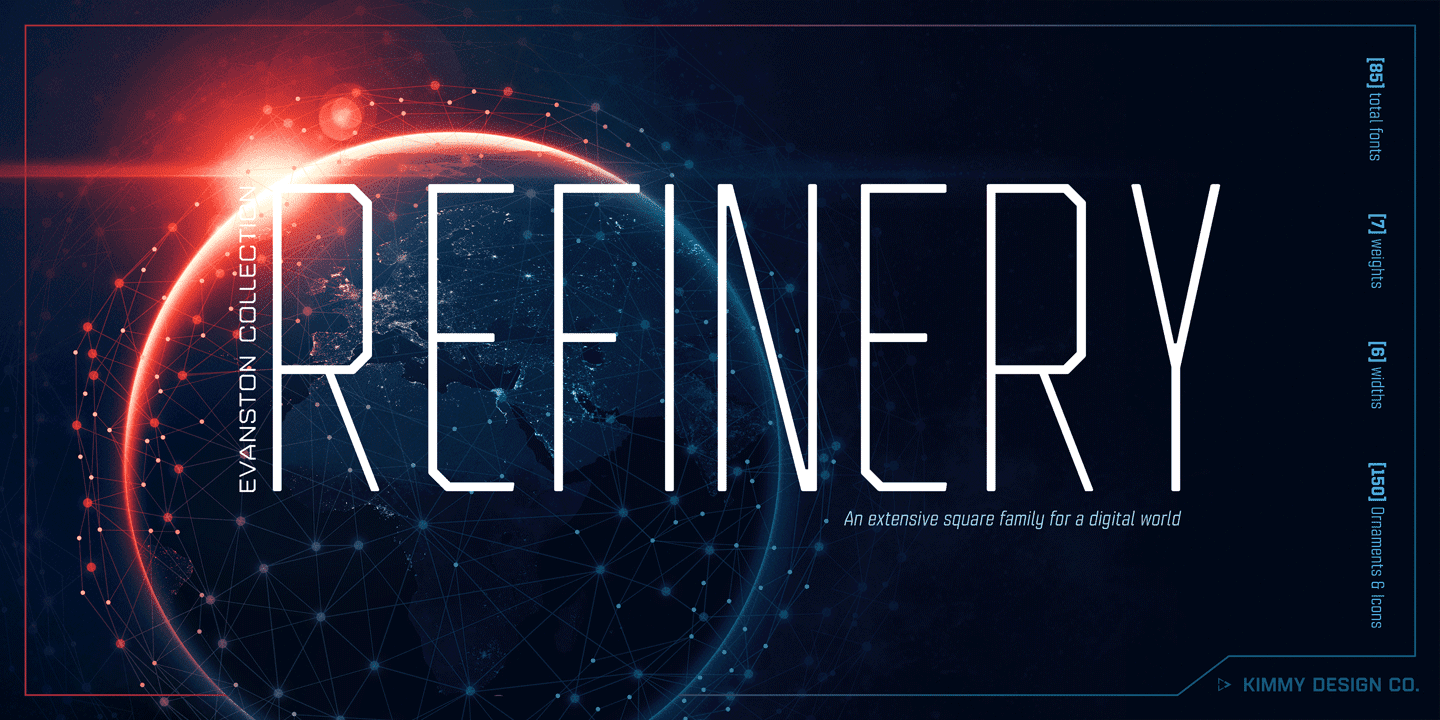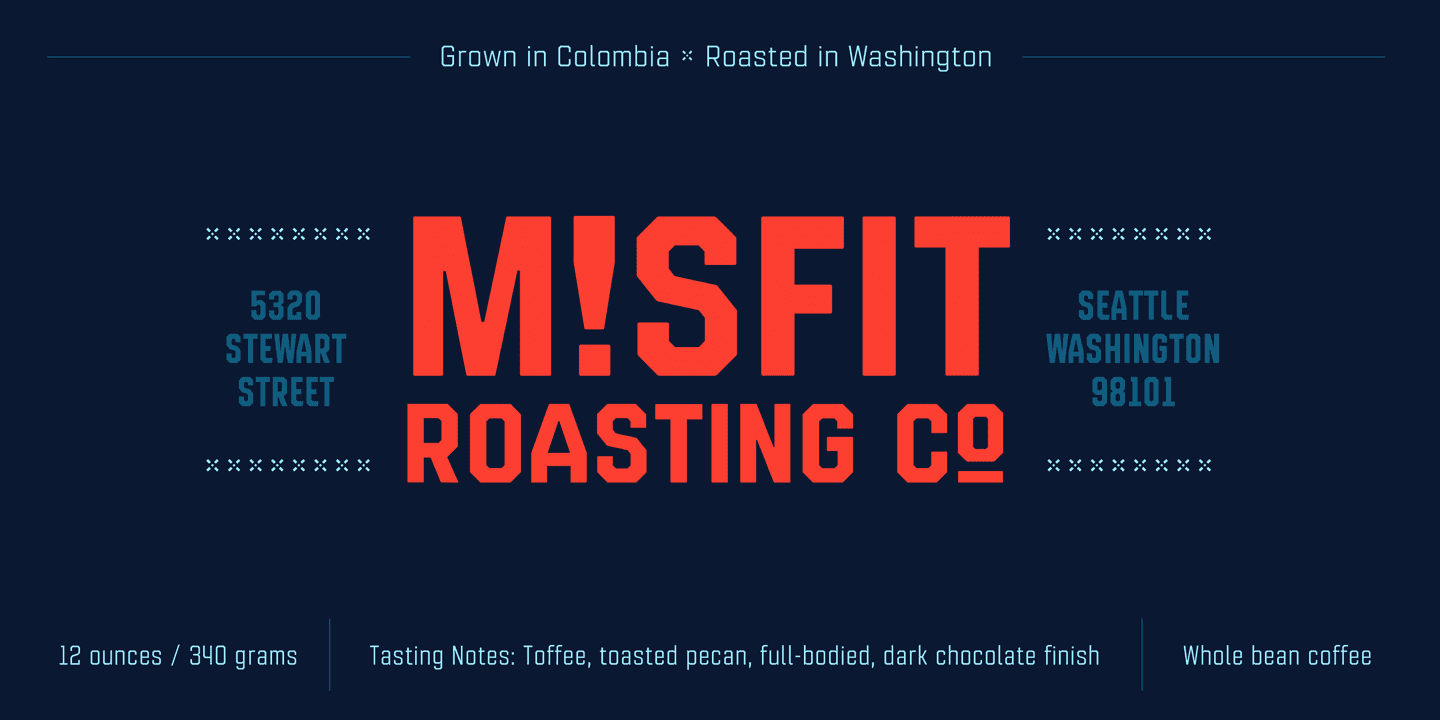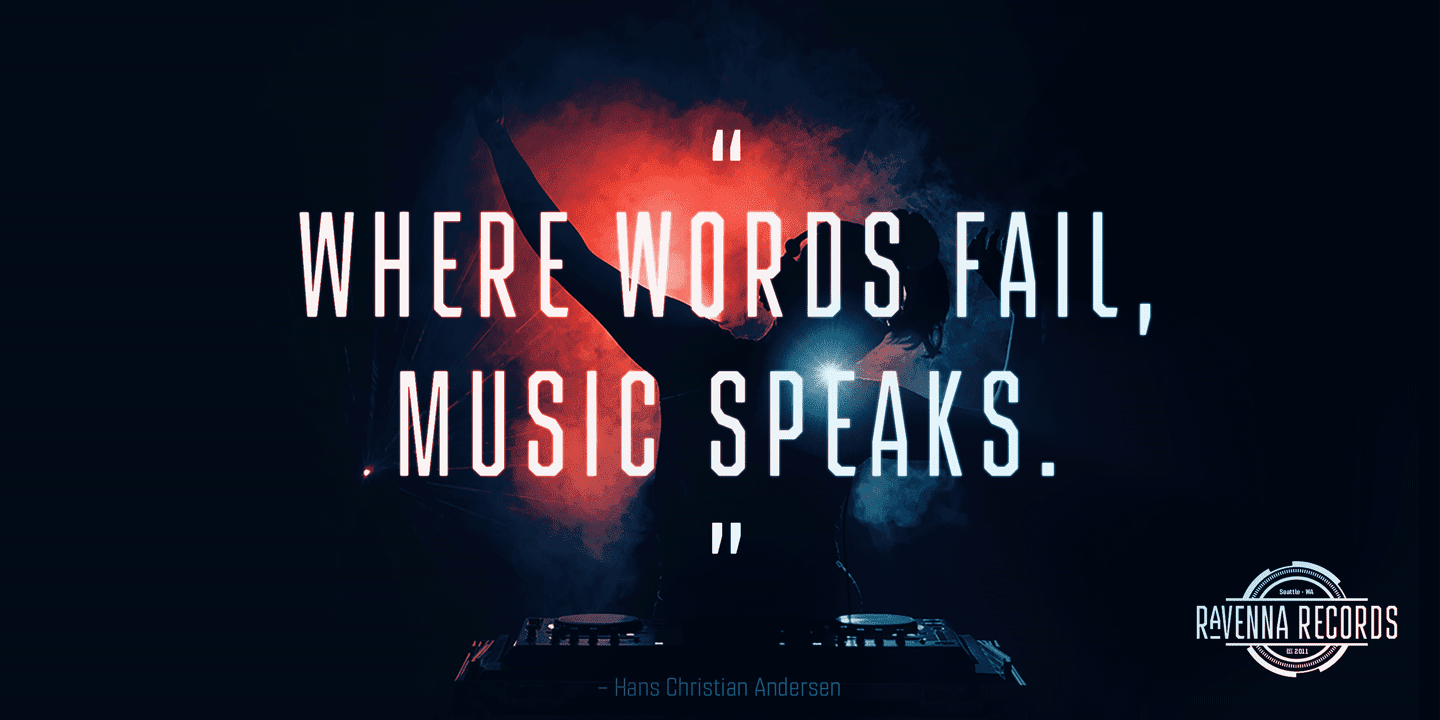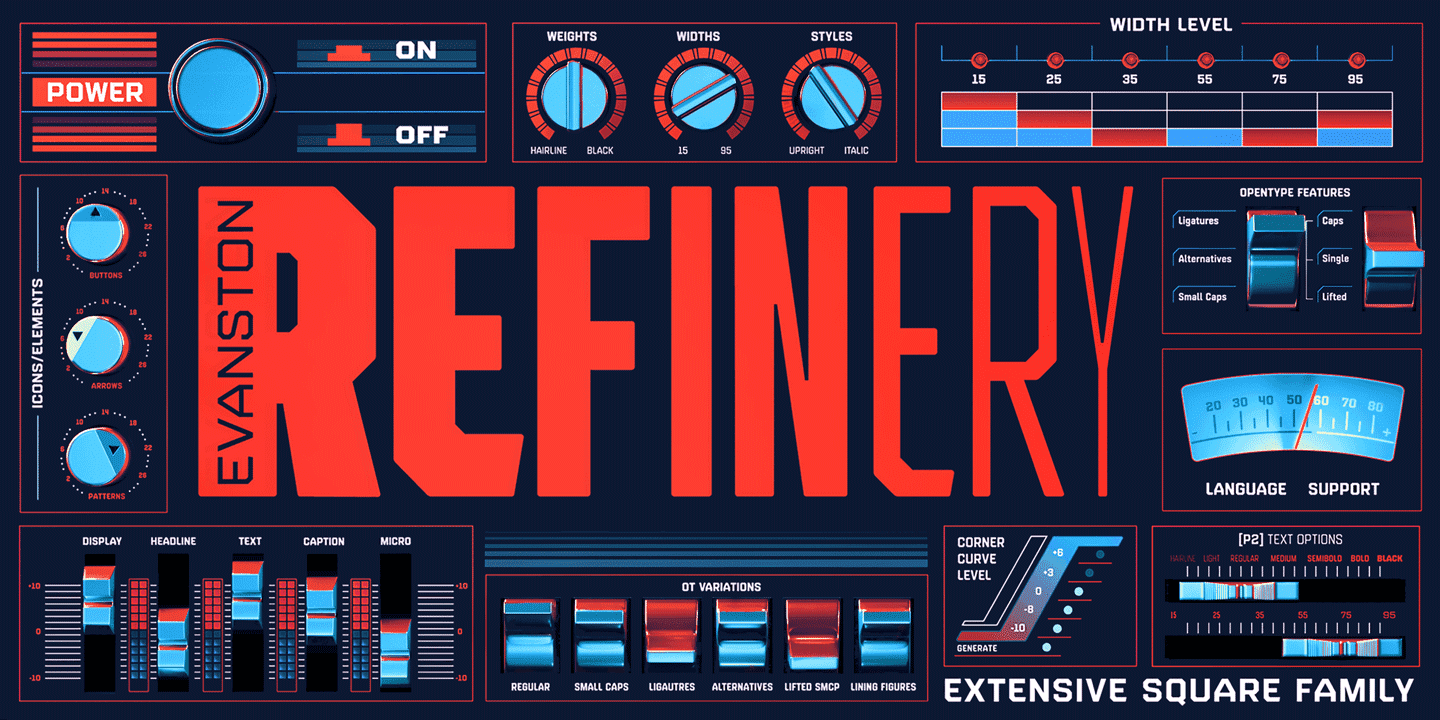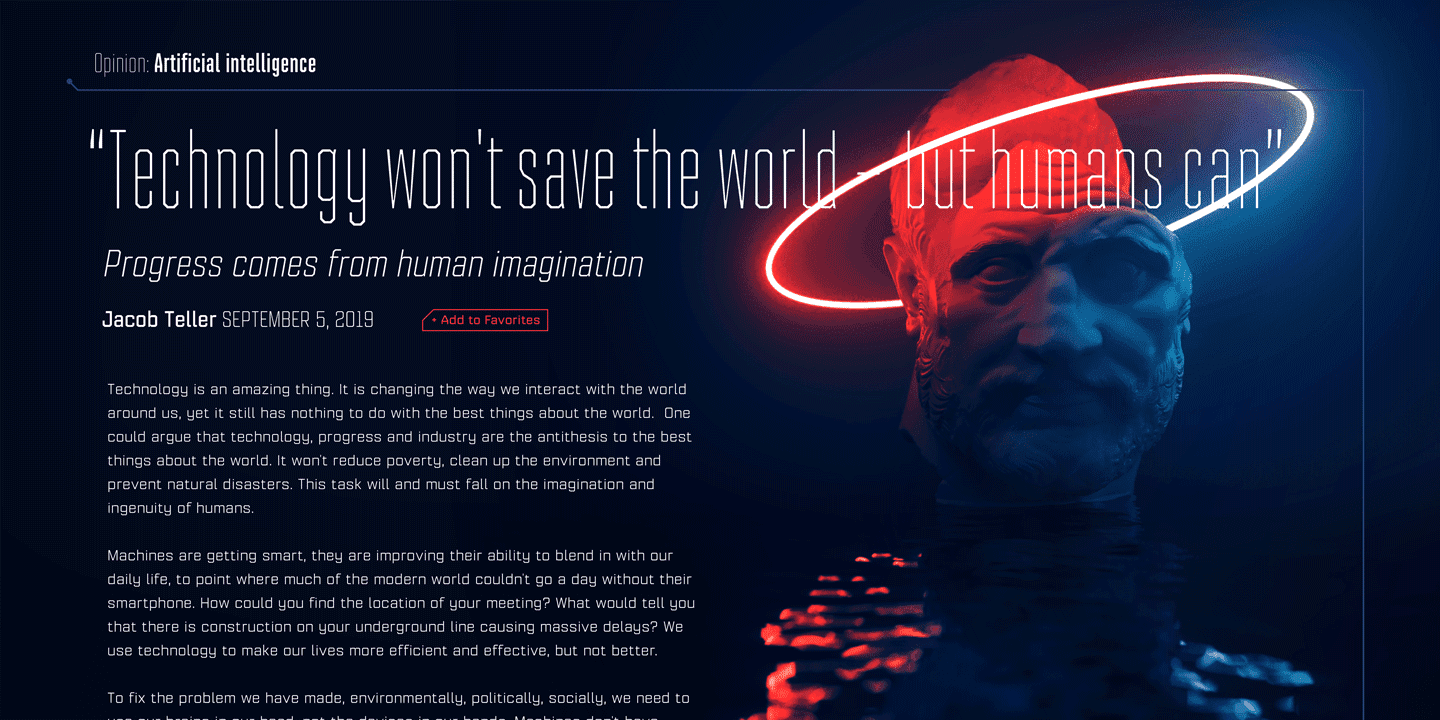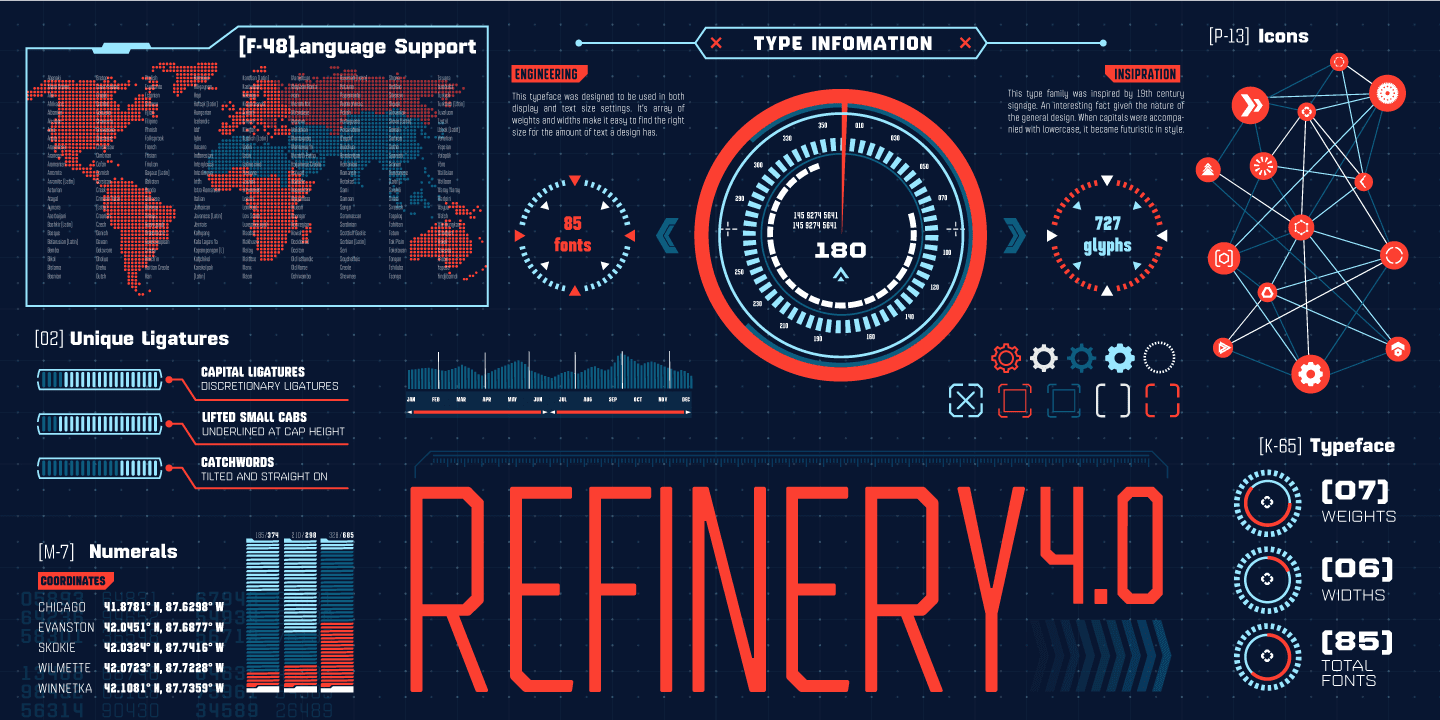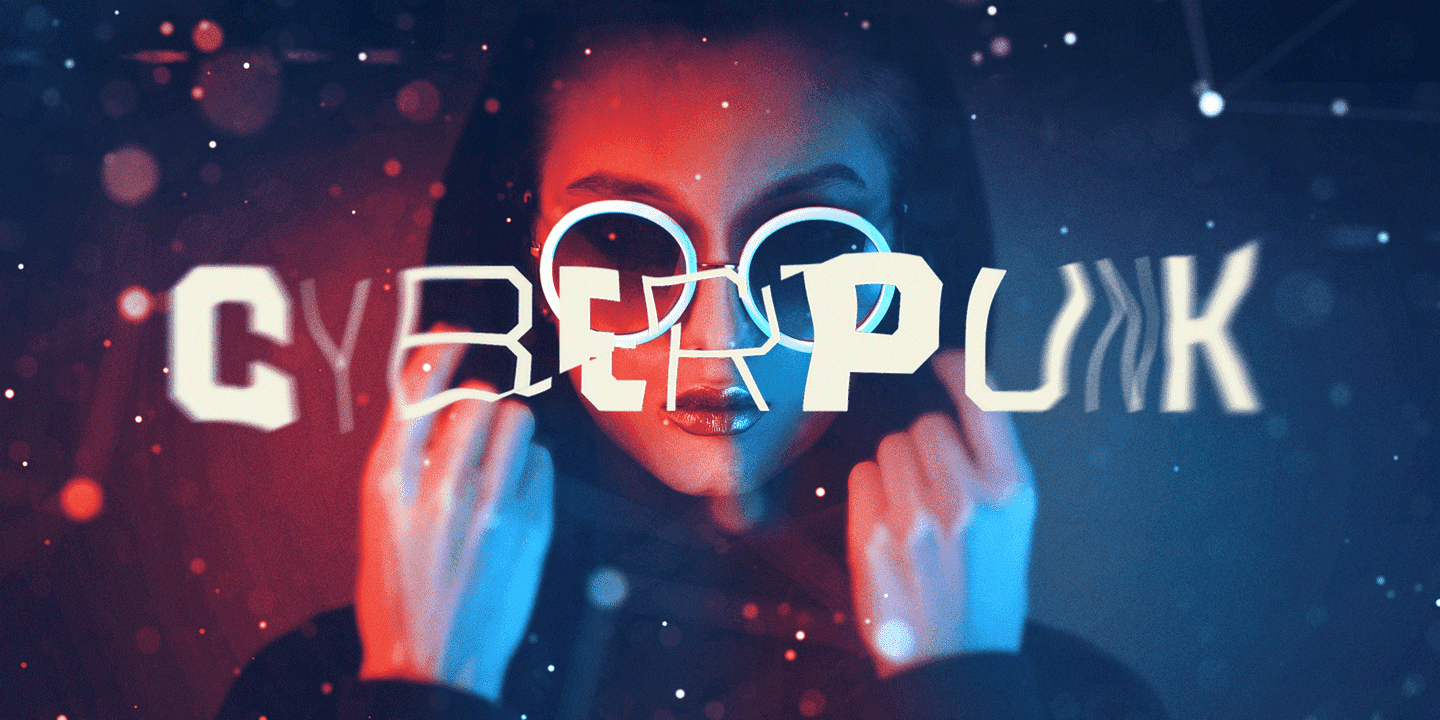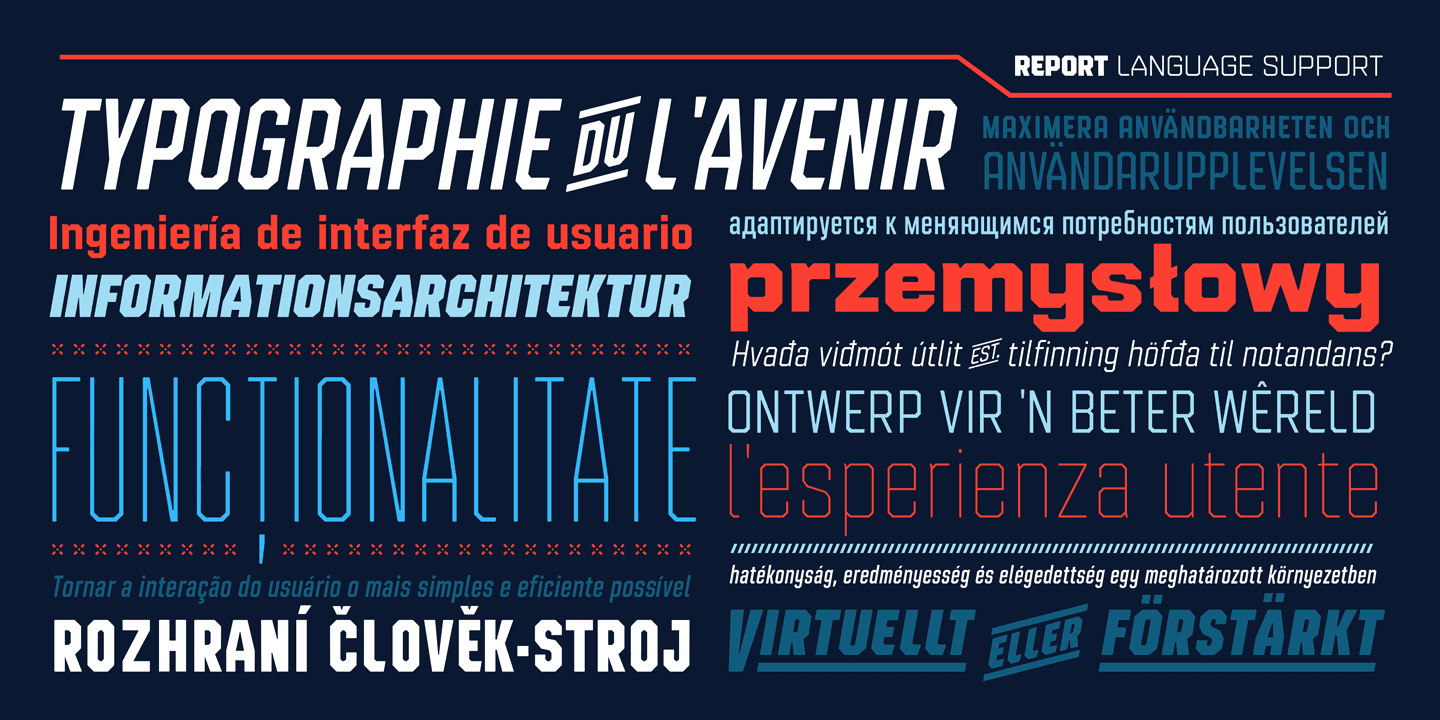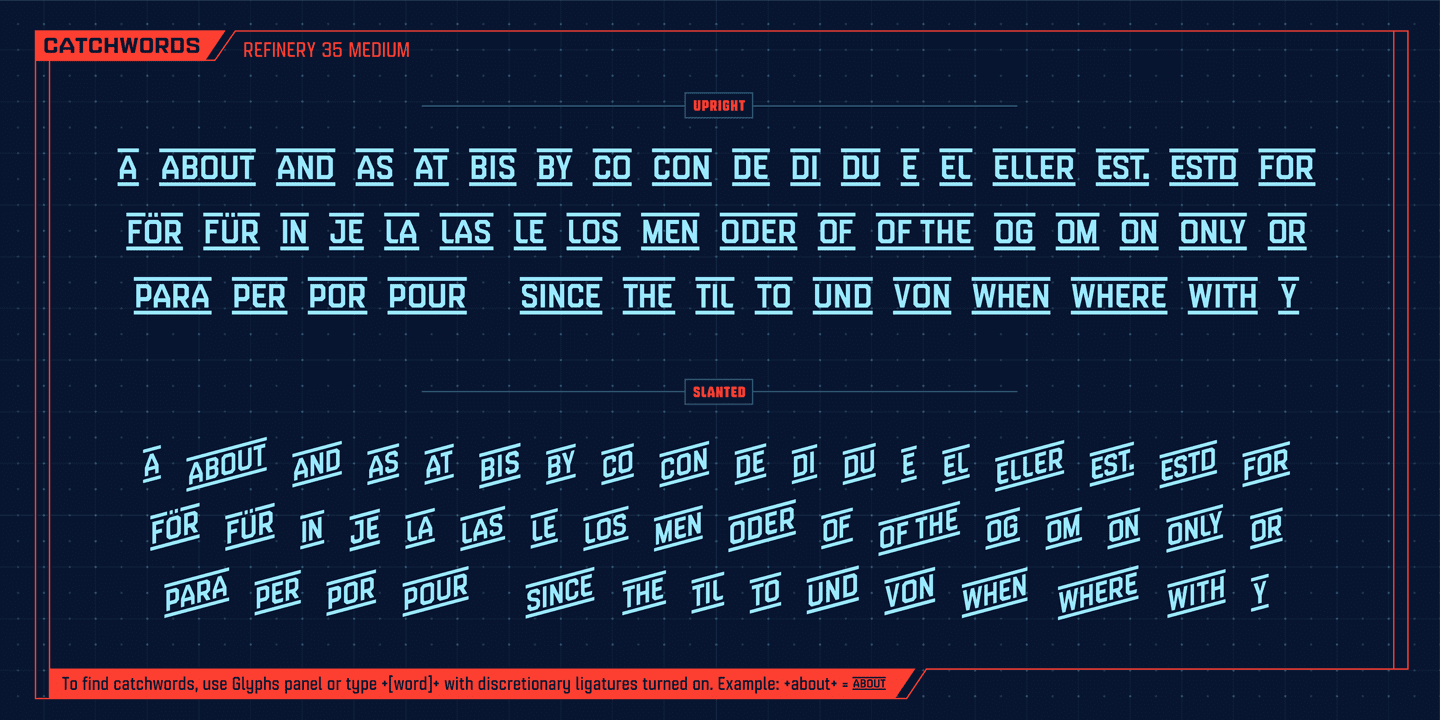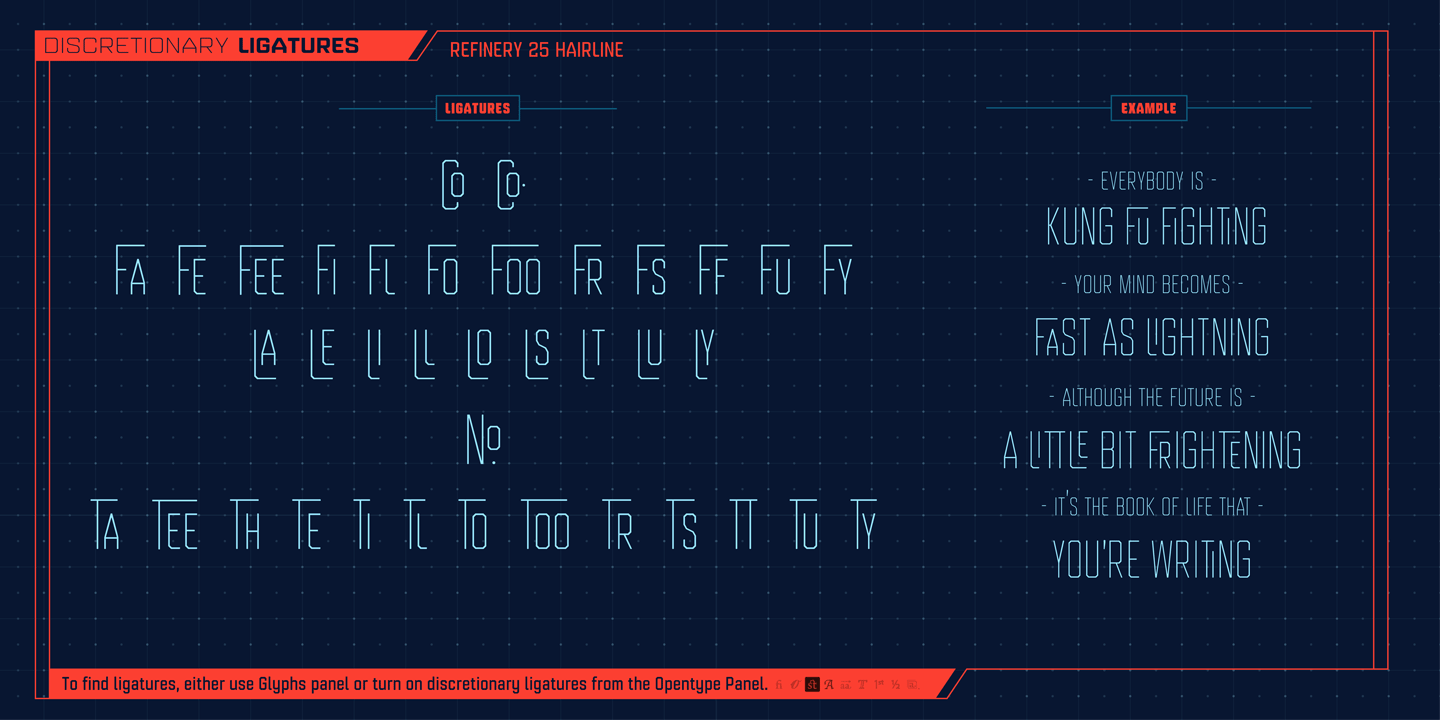
Refinery Family (85 fonts)
DESIGN Refinery has it’s roots in early 20th century signage and saloon typography, but has been modernized - even future-ized - to fit the 21st century digital landscape. The design was aimed at providing a type family that could work in many modern design fields, from sports, tech and military to gaming, HUD, virtual reality and augmented reality.
ENGINEERING Essentially. Refinery is a simple mono-linear square design has been expertly refined into an easy-reading sans serif typeface. It was designed to be used in both display and text settings. From hairline to black in ultra-narrow or extended, the wide array of weight and width options makes it easy to find the right font for each text need.
SPECS Refinery not only includes 85 font files, but each one include a wide array of Opentype Extras that allow even further customization.
• Stylistic Alternatives: Letters A W Y have a styling variation that rounds the pointed apex into a square curve. The S and 2 variation straightens the spine, making all curves in the alphabet read as 90º angles.
• Small Capitals: A shortened version of the capitals for alternate header settings.
• Titling Alternatives: In this typeface, this feature turns on lifted small caps. Take the small capitals, raise them to level with capitals and underline at the baseline. When multiple lowercase or small capital letters are typed in a row, the underlines connect, creating unique ligatures.
• Figures: There are different figure styles for different text needs. Options include, proportional lining, tabular lining (for math), old style and small capitals.
• Discretionary Ligatures: A little funk to this otherwise serious typeface. Letters with a long baseline or cap height stem - F, L, T - get elongated to hug a small capital vowel. Other ligatures include Co. and No.
• Catchwords: These are common words that bring emphasis to a design. In English these words include ‘and’ ‘as’ ‘by’ ‘in’ ‘of’ ‘the’ ‘to’ ‘when’, among others. Refinery also includes multilingual catchwords of ‘el’ ‘la’ ‘oder’ ‘go’ ‘para’ ‘pour’ ‘und’ ‘y’, among others. For the full list, please check out the specimen images.
EXTRAS To round the typeface off, a set of over 150 ornaments, icons, arrows, patterns and line breaks is included to provide complimentary graphics. These can be found in the Ornaments labelled font, it is recommended to use the Glyphs panel to select which text glyph is needed.